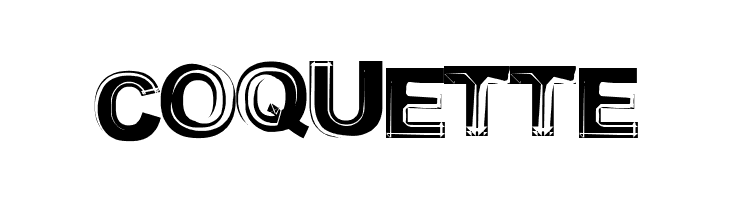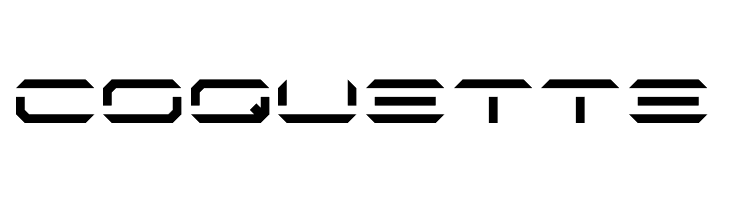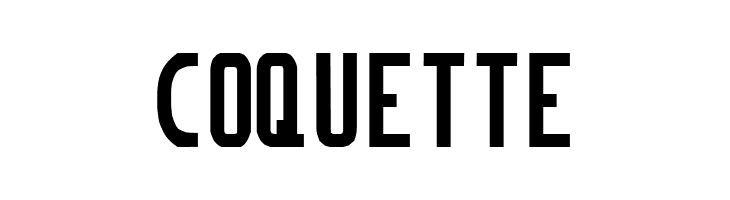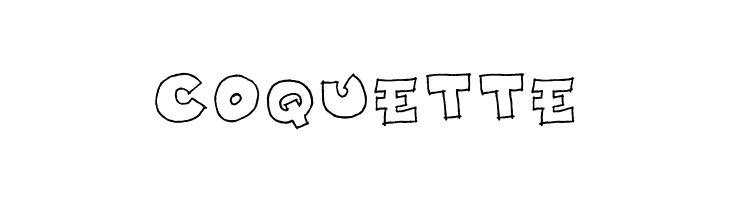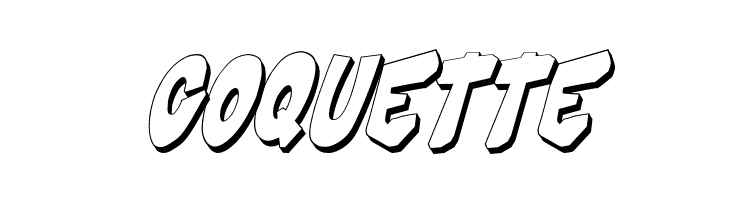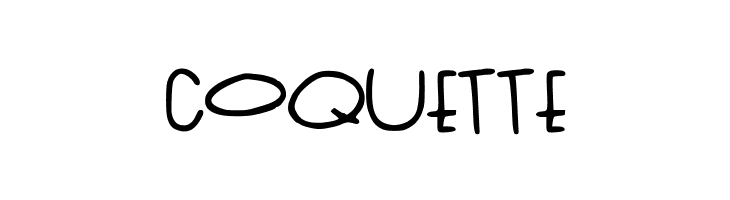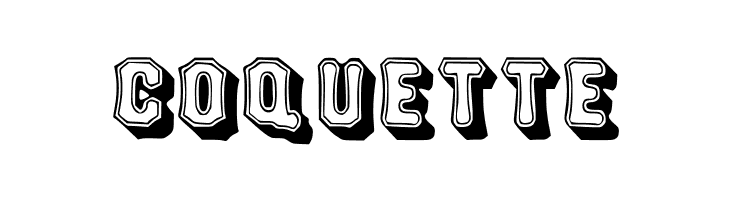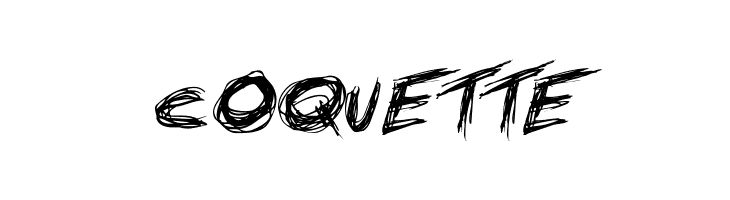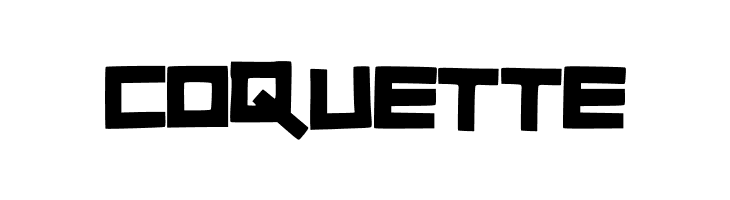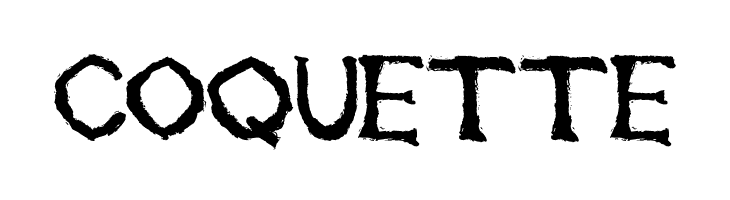
A bold, brush-style font with high contrast and dynamic strokes.
A distressed, grunge-style font with a textured, urban appearance.
A bold, uppercase font styled like board game tiles with numbers.
A playful, handwritten font with an informal and organic style.
A bold, playful handwritten font with a casual and friendly style.
A playful, handwritten font with a whimsical and informal style.
A playful, thin, handwritten font with elongated strokes and a whimsical style.
A bold, playful handwritten font with thick strokes and a casual style.
A bold, geometric font with angular shapes and a futuristic style.
A bold, geometric font with angular shapes and solid forms.
A bold, modern font with geometric lines and strong presence.
A playful, hand-drawn font with bold, rounded characters and a whimsical style.
A futuristic, geometric monospaced font with sharp angles and consistent width.